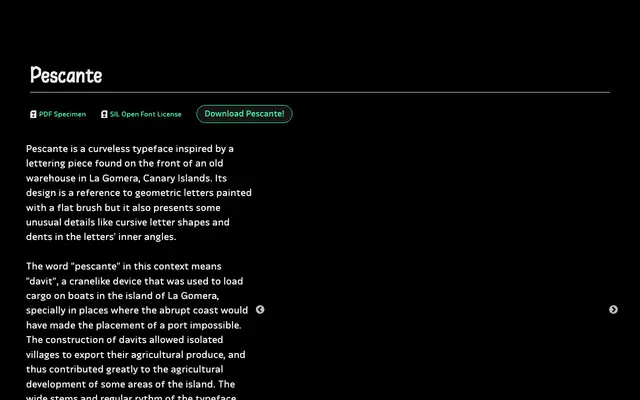
Pescante
Tunera · Ariel Martín Pérez
A curveless display typeface by Ariel Martín Pérez, derived from painted warehouse lettering found on the island of La Gomera in the Canary Islands.
Drawn without curves, Pescante takes its visual cues from letters painted with a flat brush, referencing a piece of lettering on an old warehouse facade in La Gomera. Unusual details appear alongside the geometric rigour: cursive letter forms and dents at inner angles give the design a handmade irregularity that flat geometry alone would not produce. The wide stems and even rhythm are described by the designer as an echo of the davit cranes, decommissioned cargo-loading structures that once served La Gomera's steep, portless coastline.
A curveless, flat-brush-inspired geometric display typeface with unusual cursive letter shapes and angled dents; its distinctive construction places it firmly in the display category rather than a conventional geometric sans.